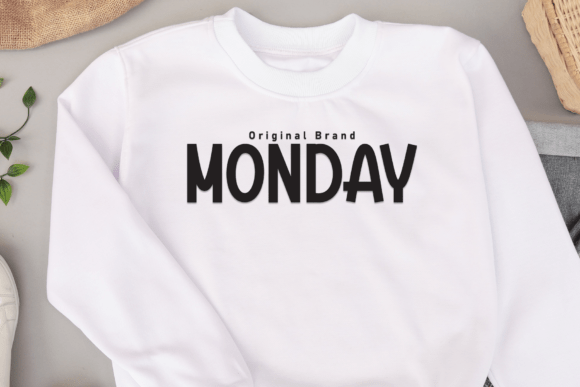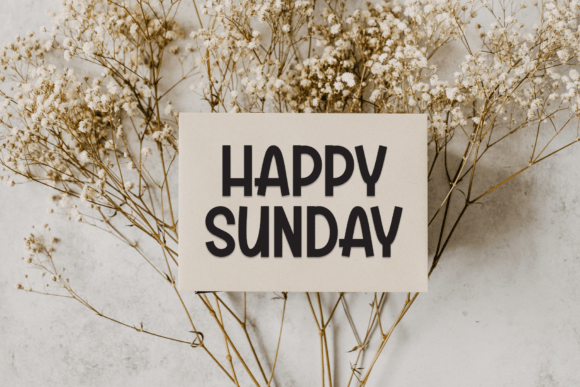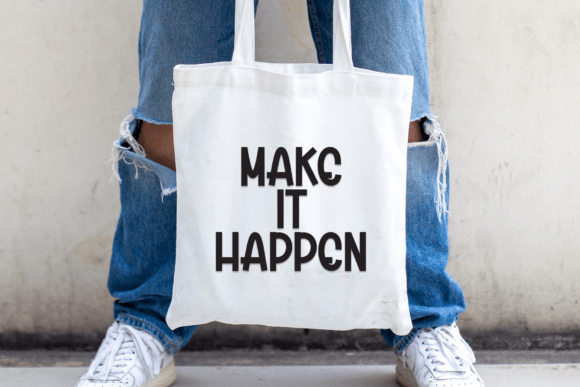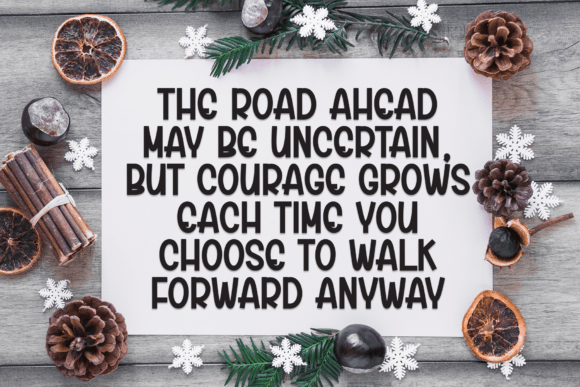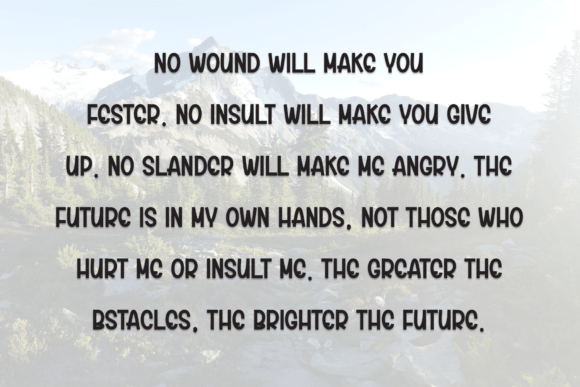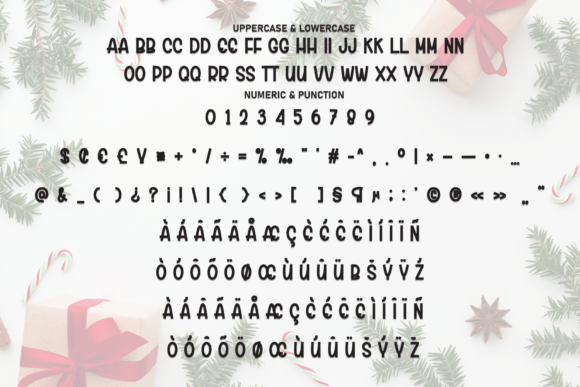
Christmas Background Font: Adding a Touch of Magic to Your Designs
Are you looking for a font that can bring warmth, joy, and a sense of welcoming familiarity to your designs? Look no further than the Christmas Background Font, an enchanting artisan display font that’s perfect for adding a sprinkle of buoyant zing to your creative projects.
A Font that Exudes Charisma and Vivacity
The Christmas Background Font is hand-crafted to infuse your designs with a fun and sprightly rhythm. Overflowing with charisma and suffused with merry vivacity, this font is sure to capture the attention of your audience and leave a lasting impression. Whether you’re designing wedding invites, heartfelt greeting cards, or any other creative project, this font is sure to add a touch of magic to your work.
The Christmas Background Font is versatile and can be used for a wide range of design projects. Here are some ideas to get you started:
- Wedding Invites: Add a touch of elegance and sophistication to your wedding invites with this beautiful font.
- Greeting Cards: Create heartfelt and personalized greeting cards for special occasions like Christmas, birthdays, and anniversaries.
- Social Media Graphics: Add a sprinkle of fun and personality to your social media graphics with this playful font.
- Digital Art: Use this font to create stunning digital art pieces that showcase your creativity and skill.
What Sets the Christmas Background Font Apart
So, what makes the Christmas Background Font so special? Here are a few features that set it apart from other fonts:
- Hand-crafted: This font is carefully crafted by hand to ensure that every detail is perfect.
- Unique Character: The Christmas Background Font has a unique character that is sure to make your designs stand out.
- Versatile: This font can be used for a wide range of design projects, from wedding invites to digital art.
Tips and Tricks for Getting the Most Out of the Christmas Background Font
Here are some tips and tricks to help you get the most out of the Christmas Background Font:
- Experiment with different colors: Try out different colors and combinations to find the one that works best for your project.
- Use it with other fonts: Combine the Christmas Background Font with other fonts to create a unique and interesting design.
- Play with different sizes: Experiment with different font sizes to create visual interest and hierarchy in your design.
- Use it for headlines and titles: The Christmas Background Font is perfect for headlines and titles, so use it to add a touch of magic to your design.
The Christmas Background Font is a beautiful and versatile font that’s perfect for adding a touch of magic to your designs. With its unique character, hand-crafted details, and ease of use, this font is sure to become a favorite among designers and crafters. So why wait? Download the Christmas Background Font today and experience the thrill of added delight in your design palette.